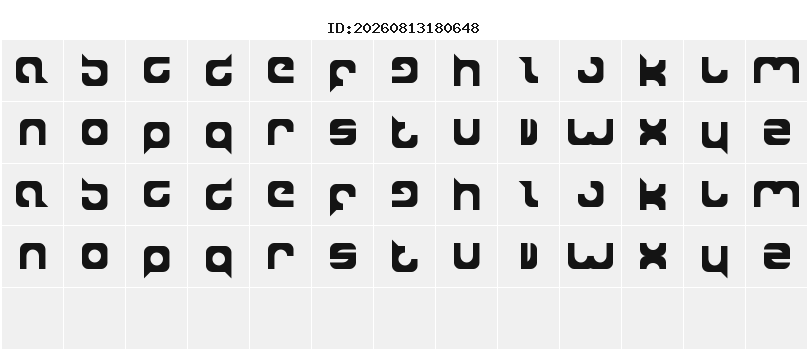
super power Preview
• Font Name: super power
• Font ID: super power:Version 1.00
• Full Font Name: super power
• Version: Version 1.00 August 20, 2011, initial release
• PostScript Name: superpower
• Designer: 桴瑰㨯⽷睷⹤慦潮琮捯洯睩湯⵳⵫慤楲⹤㈲〹
• Manufacturer: 桴瑰㨯⽷睷⹤慦潮琮捯洯睩湯⵳⵫慤楲⹤㈲〹
About super power.ttf
super power.ttf is a modern, elegant sans-serif font designed for ultimate readability and visual harmony. Perfect for branding, headlines, web design, and print materials.